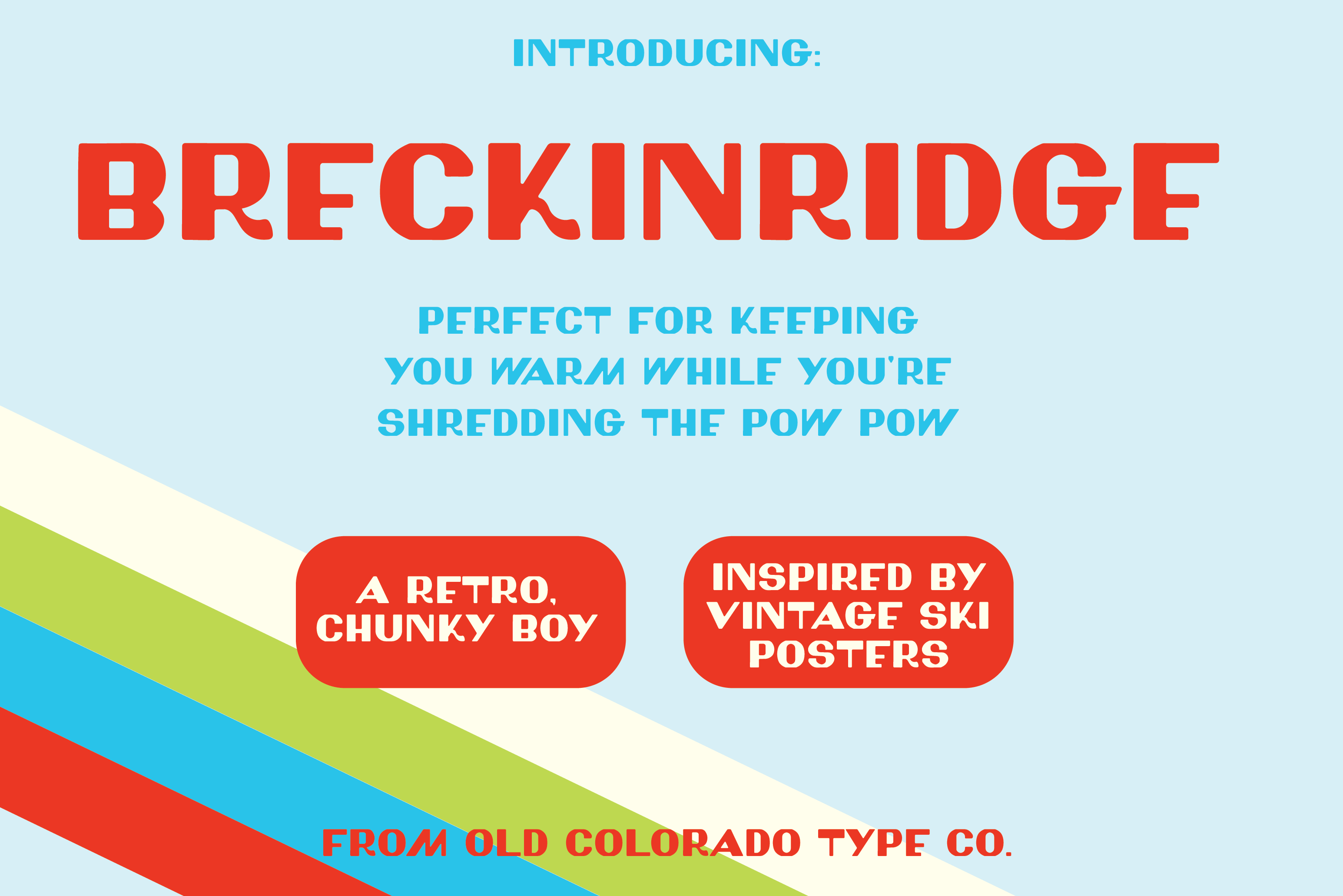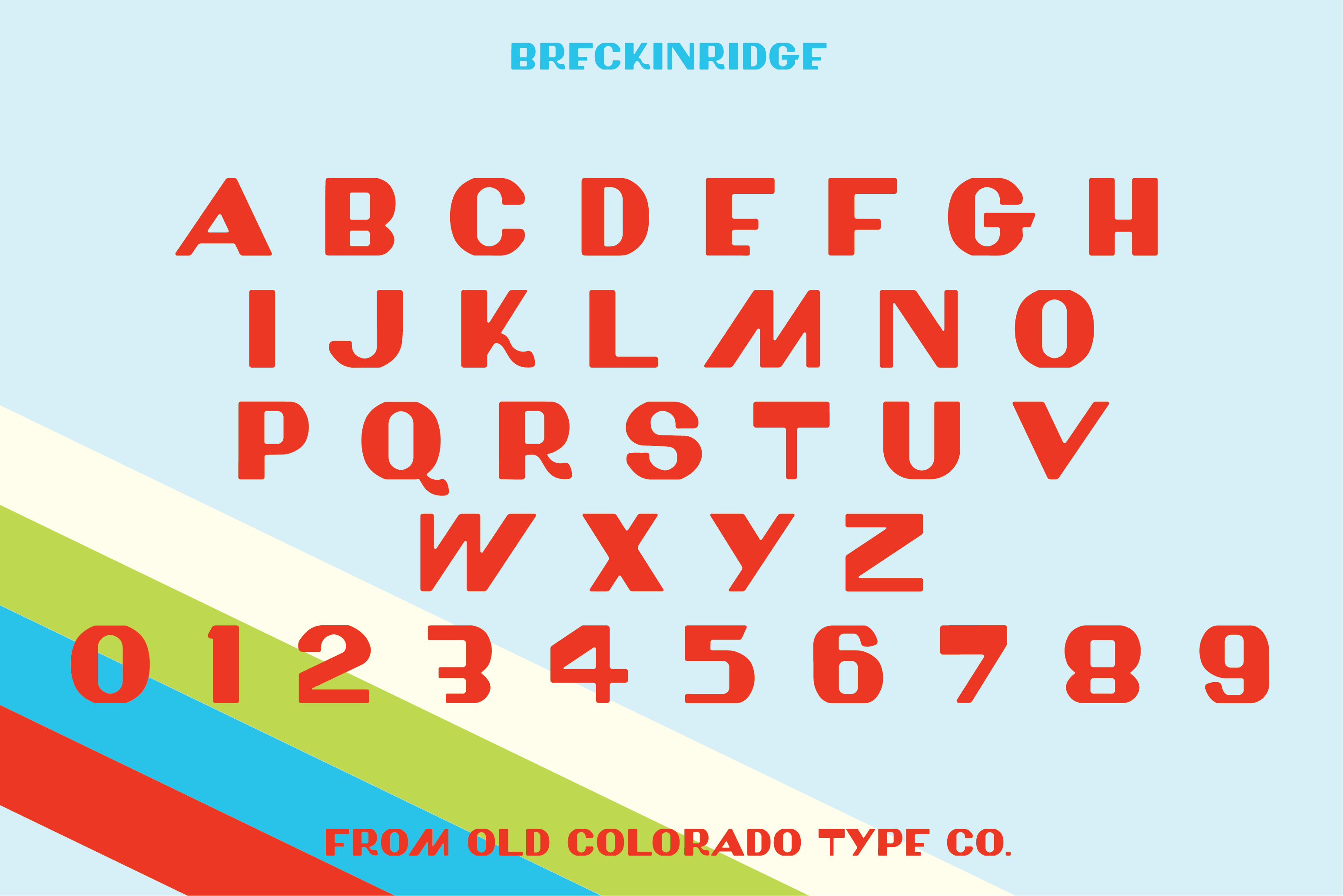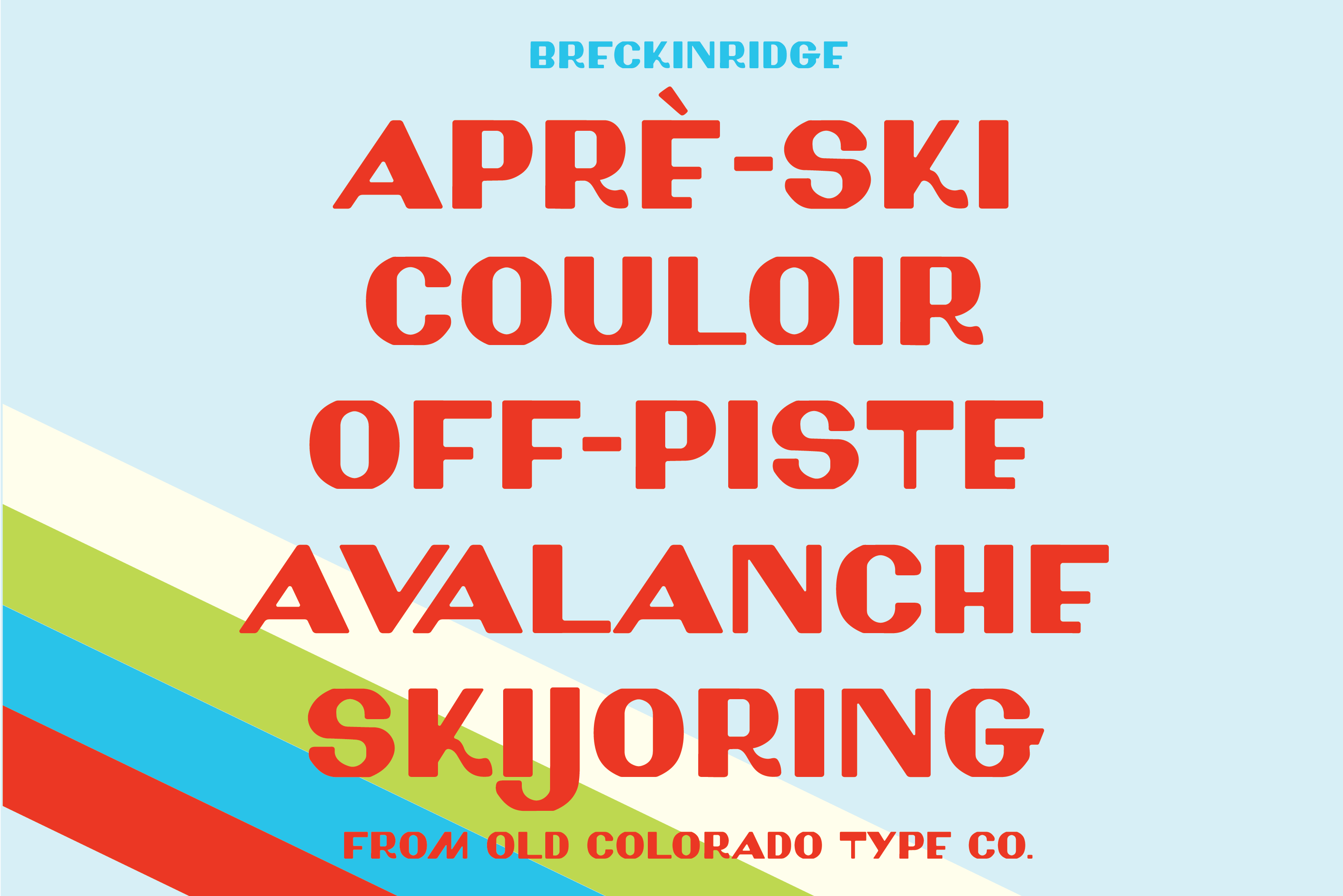
Breckenridge Typeface
A wonky font inspired by the quirky type in vintage ski posters. Hand drawn by me, Caroline- Old Colorado Type Co. is the moniker for my side quest as a type designer :)